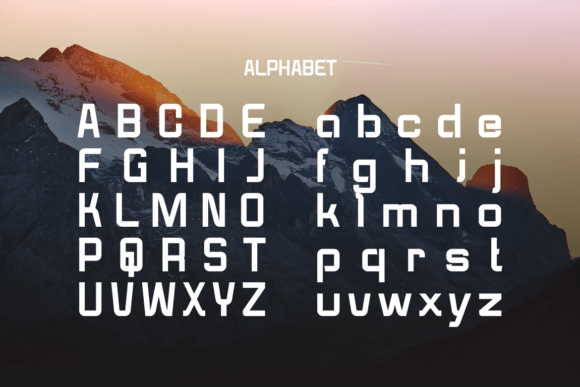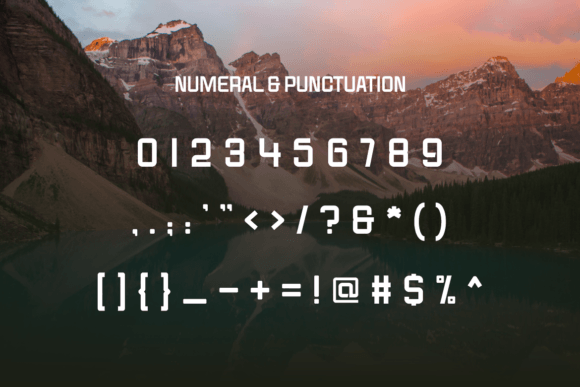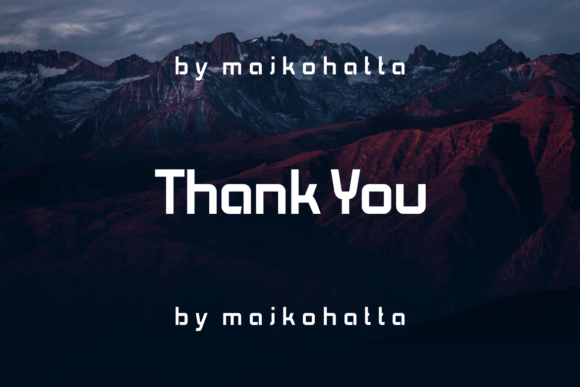
Introduction to Qomodo Font
Qomodo is a bold and authentic sans serif font.
The font is suitable for any branding project like logo, t-shirt printing, esports, and many more It will look outstanding in a wide range of contexts.